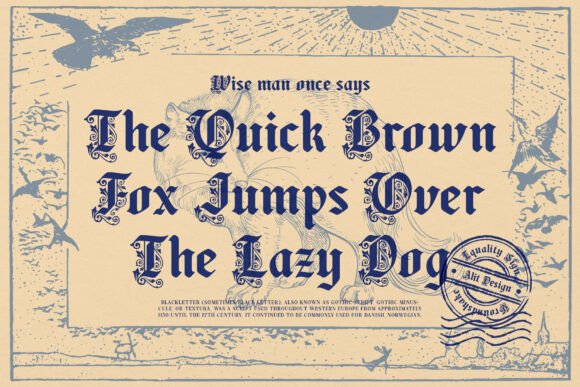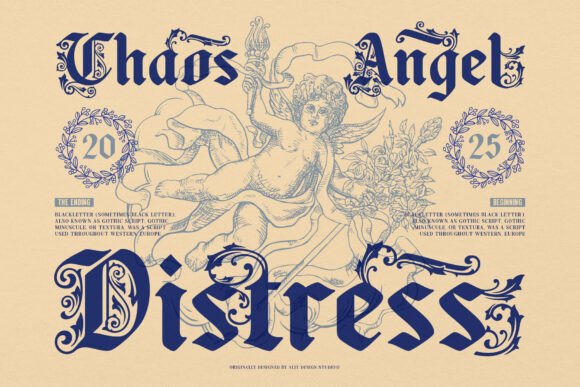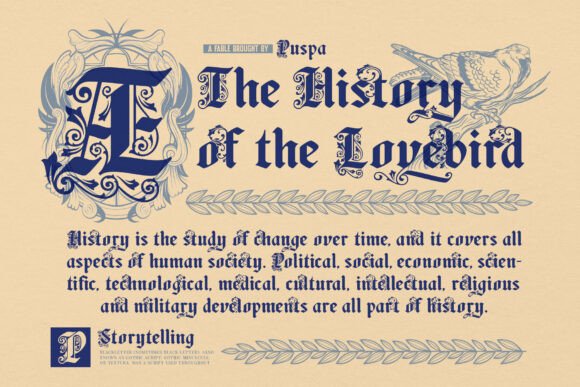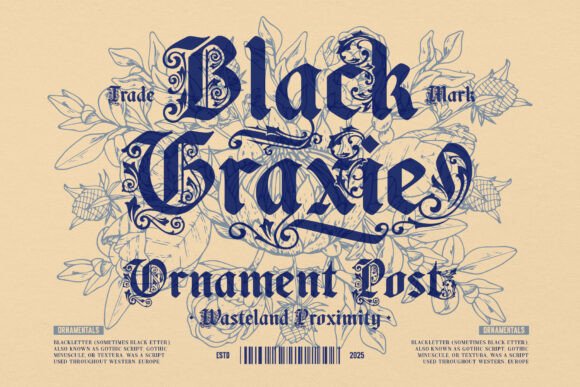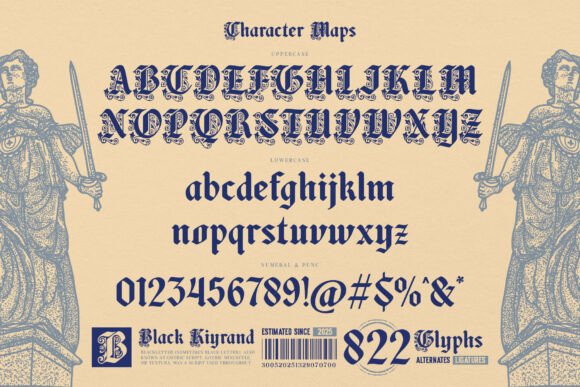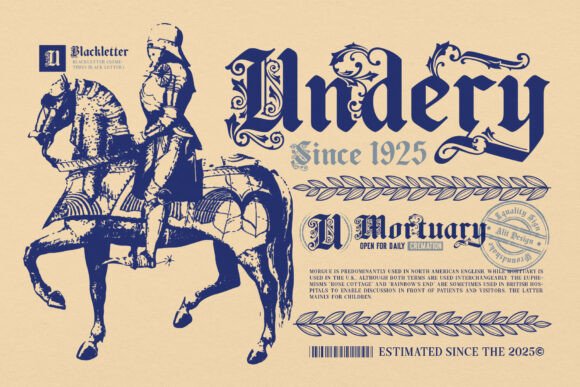
Black Kiyrand Font: A Masterpiece of Ornamental Blackletter Elegance
In the realm of typography, few fonts manage to capture the essence of medieval calligraphy while exuding a bold, modern presence. Black Kiyrand Typeface is one such marvel, seamlessly blending historical elegance with contemporary craft. Inspired by the rich traditions of Gothic manuscripts and adorned with intricate ornamental flourishes, Black Kiyrand stands as a testament to the beauty of blackletter typography.
A Richly Detailed Blackletter Font
Black Kiyrand is more than just a font—it’s an experience. With 822 glyphs at its disposal, including alternates and ligatures, this typeface offers an unparalleled level of versatility. Whether you’re working on vintage posters, book covers, certificates, branding, packaging, or apparel with an old-world charm, Black Kiyrand provides the perfect tools to bring your creative vision to life.
Intricate Craftsmanship
Each character in Black Kiyrand is meticulously crafted with refined flourishes and baroque touches, imbuing your text with a regal, artistic presence. The uppercase letters are lavishly ornamented, making them ideal for standout headlines or monogram work. Meanwhile, the lowercase letters maintain readability with a graceful flow, ensuring that your message is conveyed with clarity and style.
Perfect Harmony of Historical Elegance and Contemporary Craft
Black Kiyrand’s design is deeply rooted in the traditions of Gothic calligraphy, yet it also boasts a bold modernity that sets it apart from more traditional blackletter fonts. This perfect harmony of old and new makes Black Kiyrand an invaluable asset for designers and crafters looking to add a touch of sophistication and elegance to their work.
The versatility of Black Kiyrand is one of its most compelling features. Here are just a few examples of the many creative applications where Black Kiyrand truly shines:
- Vintage Posters: Add a touch of classic elegance to your posters with Black Kiyrand’s ornate and sophisticated lettering.
- Book Covers: Give your book a distinctive look that stands out on the shelves with Black Kiyrand’s unique blend of medieval flair and modern style.
- Certificates: Lend an air of prestige and authenticity to certificates, diplomas, and other official documents.
- Branding and Packaging: Elevate your brand with a typographic style that exudes luxury, tradition, and craftsmanship.
- Apparel: Create stunning, one-of-a-kind apparel that carries an old-world charm with a distinctly modern edge.
A Statement in Typography
Black Kiyrand is not just a font—it’s a statement. It’s a declaration of sophistication, of elegance, and of a deep appreciation for the art of typography. When you choose Black Kiyrand, you’re not just selecting a typeface; you’re stepping into a world of typographic nobility, where every letter and every word becomes a work of art.
For those interested in the technical aspects, Black Kiyrand comes with:
- 822 Glyphs: Including alternates and ligatures, providing a wide range of typographic options.
- Character Set: Supports multiple languages, ensuring a broad usability across different regions and scripts.
Black Kiyrand Font is a masterpiece of ornamental blackletter elegance, offering designers and crafters a unique tool to elevate their creative projects. With its richly detailed design, versatility, and perfect blend of historical and modern elements, Black Kiyrand is poised to become a staple in the world of typography. Whether you’re looking to add a touch of medieval charm to your work or simply seeking a font that exudes elegance and sophistication, Black Kiyrand is an exceptional choice.
In the hands of a creative professional, Black Kiyrand is more than just a font—it’s a key to unlocking a world of artistic expression and typographic excellence. So, step into the world of Black Kiyrand, and let its ornamental blackletter elegance guide your creative journey.